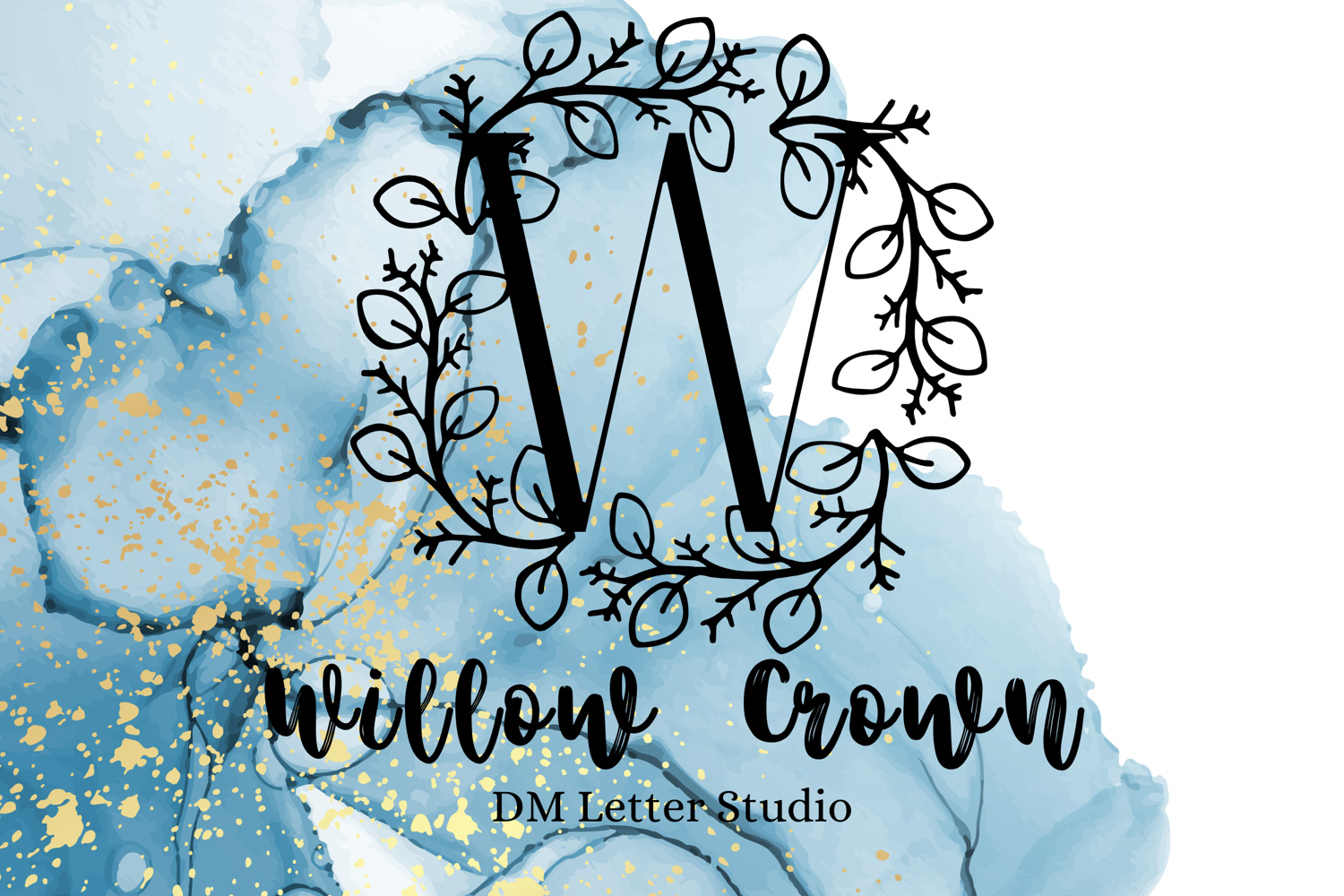
Willow Crown Monogram - Regal Botanical Serif Font
Willow Crown Monogram
Willow Crown Monogram – Regal Botanical Serif Font with Willow Accents
Willow Crown Monogram is a graceful serif monogram font adorned with flowing willow branch embellishments that evoke a sense of natural royalty. Each uppercase letter is delicately crowned with willow foliage, giving your designs a soft, noble touch—perfect for weddings, branding, and elegant customization projects.
• Willow Botanical Embellishments: Elegant willow branch accents create a flowing, nature-inspired crown atop each letter.
• Refined Serif Base: Classic serif structure offers balance, readability, and timeless appeal.
• Regal and Organic Aesthetic: Combines sophistication and natural charm effortlessly.
• Ideal For: Wedding monograms, branding, luxury packaging, Cricut crafts, boho invitations, and customized home décor.